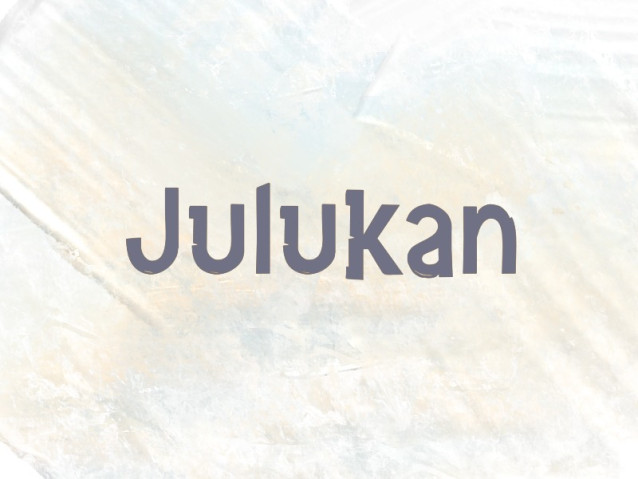
Julukan Font
Julukan Font is a modern rounded sans-serif font with a clean, friendly, and contemporary look. Its smooth curves and balanced letterforms make it highly readable and approachable, while still feeling professional. The font works well for branding, headlines, posters, UI design, social media graphics, and editorial layouts. Julukan’s simple yet confident style makes it versatile for both creative and corporate projects.